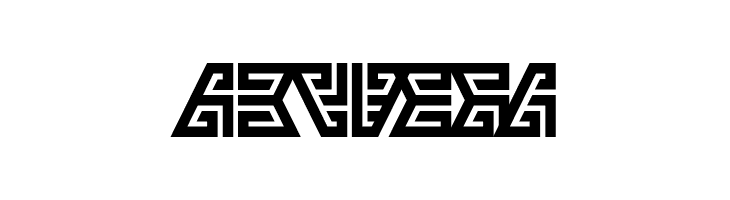
A decorative font inspired by Aztec motifs, featuring stylized face-like characters.
Decorative Aztec-inspired iconographic glyph set.
A decorative font inspired by Aztec motifs with intricate and stylized glyphs.